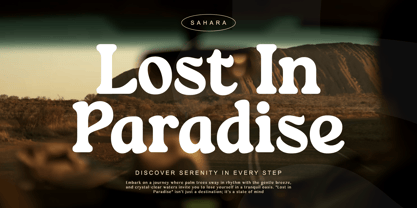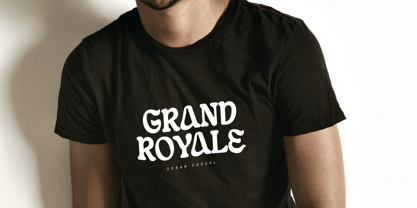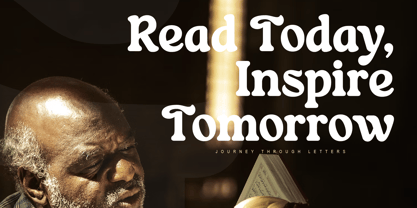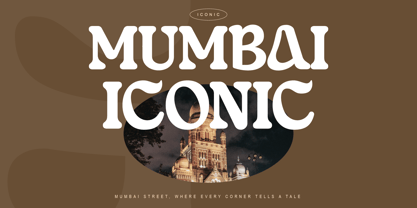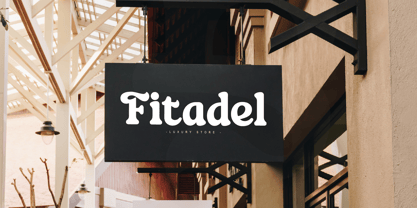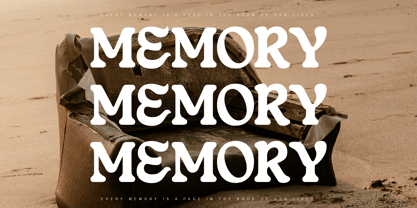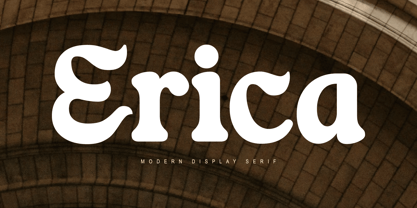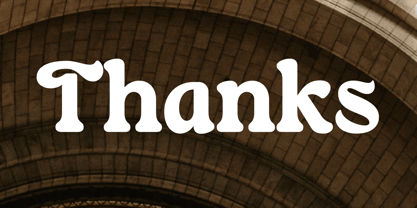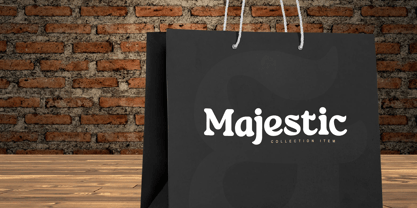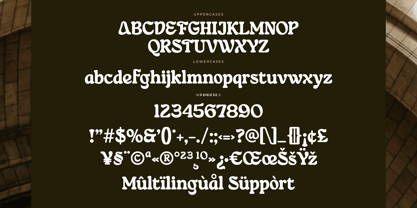
Erica
The Erica Font Family was designed by Edy Subiyanto and published by Jaruka Creative. Erica contains 1 styles. More about this family
Meet Erica: Bold, Curvaceous, and Unapologetically Iconic
Elevate your designs with Erica, a modern display serif typeface crafted to turn words into visual statements. Striking the perfect balance between vintage warmth and contemporary chic, Erica breathes life into any canvas with its heavy, fluid curves and distinctively playful terminal loops.
Whether you are looking to capture a nostalgic retro vibe or command attention in a high-end luxury market, Erica delivers personality effortlessly.
• Distinct Character Design: Features voluptuous, thick letterforms anchored by soft, rounded serifs. Unique design traits—like the whimsical loop on the uppercase 'R' and 'A', and the sleek fluid dips in the lowercase letters—ensure your text stands out.
• Versatile Applications: While engineered to turn heads in large display sizes, Erica maintains a highly legible and charming rhythm on everything from apparel to digital media.
• Global Voice: Packed with comprehensive multilingual support, numerals, and an extensive character set of punctuation and symbols to take your brand worldwide.
• Branding & Logos: Build an unforgettable identity for luxury stores, hotels, or boutique brands.
• Packaging & Merchandise: Give your product labels, shopping bags, and street-casual t-shirts an instant injection of style.
• Editorial Layouts: Create show-stopping magazine headlines, posters, and book covers that demand to be read.